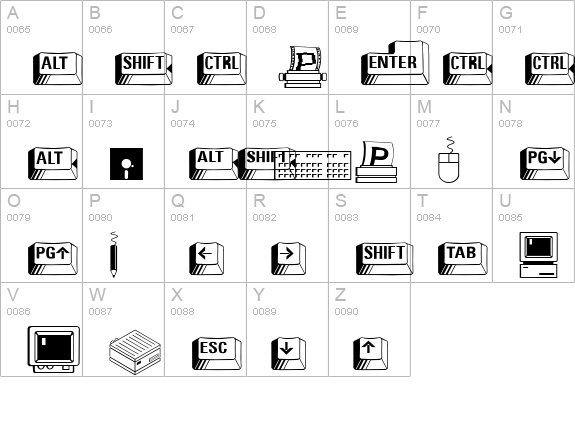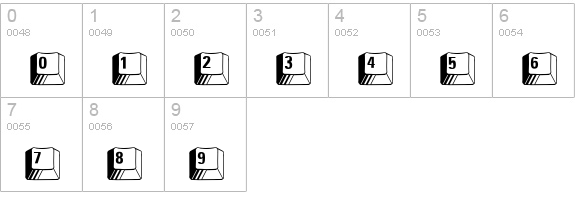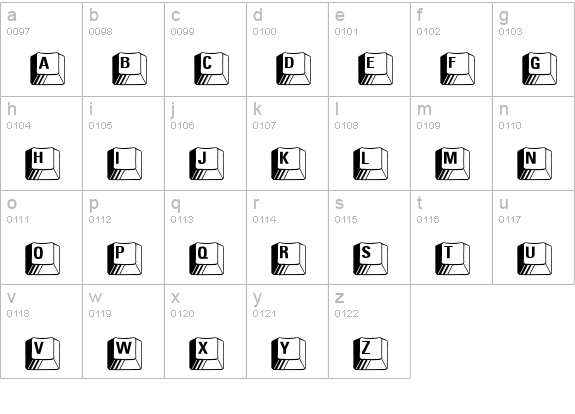
Carr Keys Font Details
Carr Keys font is a striking and modern typeface that exudes elegance and sophistication. With its sleek lines and intricate details, this font is perfect for adding a touch of luxury to any design project. The unique design of Carr Keys font makes it stand out from the crowd and gives your text a polished and professional look. What sets Carr Keys font apart is not only its visual appeal but also its versatility. Whether you're creating a logo, branding materials, or a website design, this font will elevate your project to the next level. Its clean and crisp letterforms make it easy to read while still maintaining a sense of style. Best of all, Carr Keys font is completely free to download at FontsMarket.com. This means you can use it in both personal and commercial projects without any restrictions. Don't miss out on this incredible opportunity to enhance your designs with the stunning Carr Keys font. Download it now and see the difference it can make in your work!